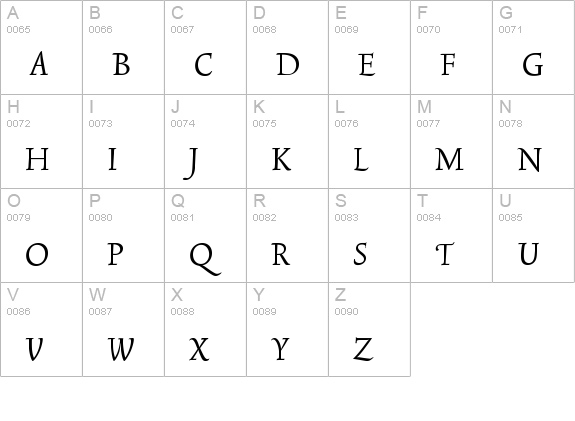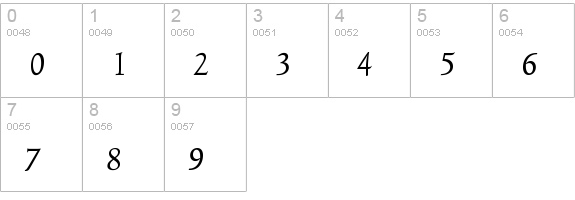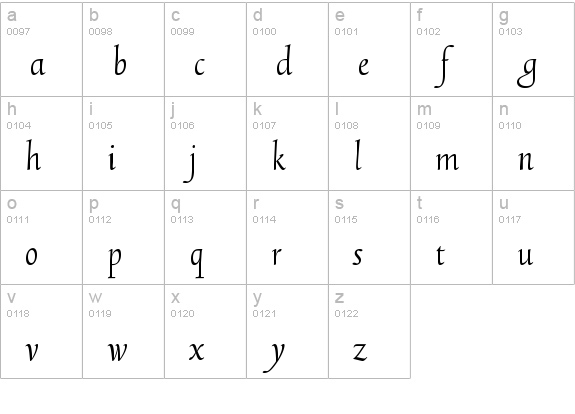
TriniteNo3-ItalicTab is a captivating and elegant font that effortlessly combines sophistication and modernity. This striking typeface exudes a sense of refined style, making it perfect for any creative project or design endeavor. With its sleek and slanted letterforms, TriniteNo3-ItalicTab adds a touch of dynamic energy to any text. Each character is meticulously crafted, ensuring a harmonious flow and legibility. The italicized style of this font brings a sense of movement and grace, making it ideal for conveying a sense of elegance and professionalism. TriniteNo3-ItalicTab is not only visually stunning, but it also offers versatility and usability. Its design lends itself well to a wide range of applications, including branding, editorial design, packaging, and more. Whether it's for a high-end fashion brand or a sleek tech company, this font will effortlessly elevate any project. One of the best features of TriniteNo3-ItalicTab is that it is available for free. Yes, you read that right! This remarkable font can be freely downloaded at FontsMarket.com. This means that you can easily access and utilize this font in your creative endeavors without any financial burden. So why wait? Unlock the potential of your designs with TriniteNo3-ItalicTab. Download it for free today at FontsMarket.com and take your projects to new heights of sophistication and style.